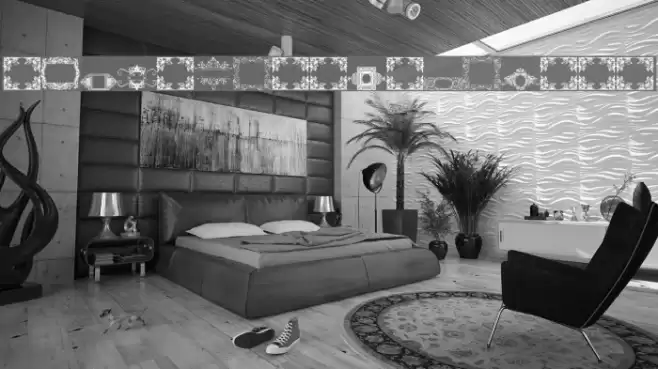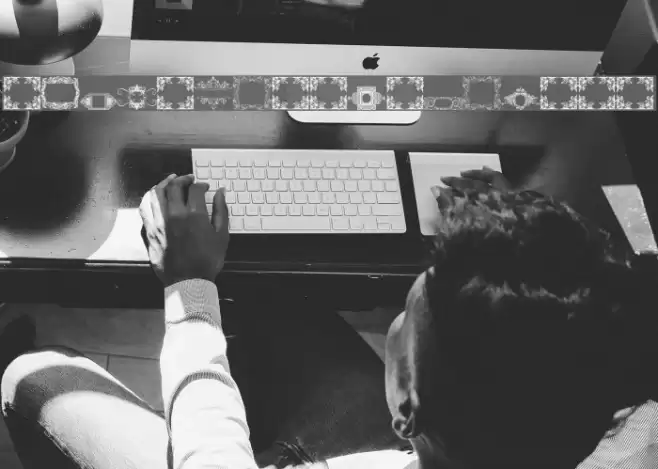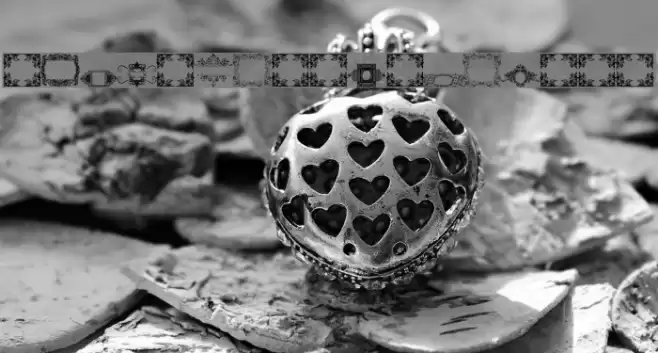
Vintage Frames 12 Font
Vintage Frames 12 Description
A collection of highly ornate, decorative vintage frames and borders featuring intricate floral and scrollwork patterns. The designs are symmetrical and detailed, evoking a classic, antique aesthetic suitable for embellishing documents or artwork.
Ornate vintage frame and border designs with intricate detailing from Uncategorized fonts.
- Proposed Projects: Wedding invitations, certificates, decorative labels, vintage posters, scrapbooking, packaging design.
- Overall Style: Vintage, Decorative, Classic
- Use Case: Borders, Frames, Decorative elements